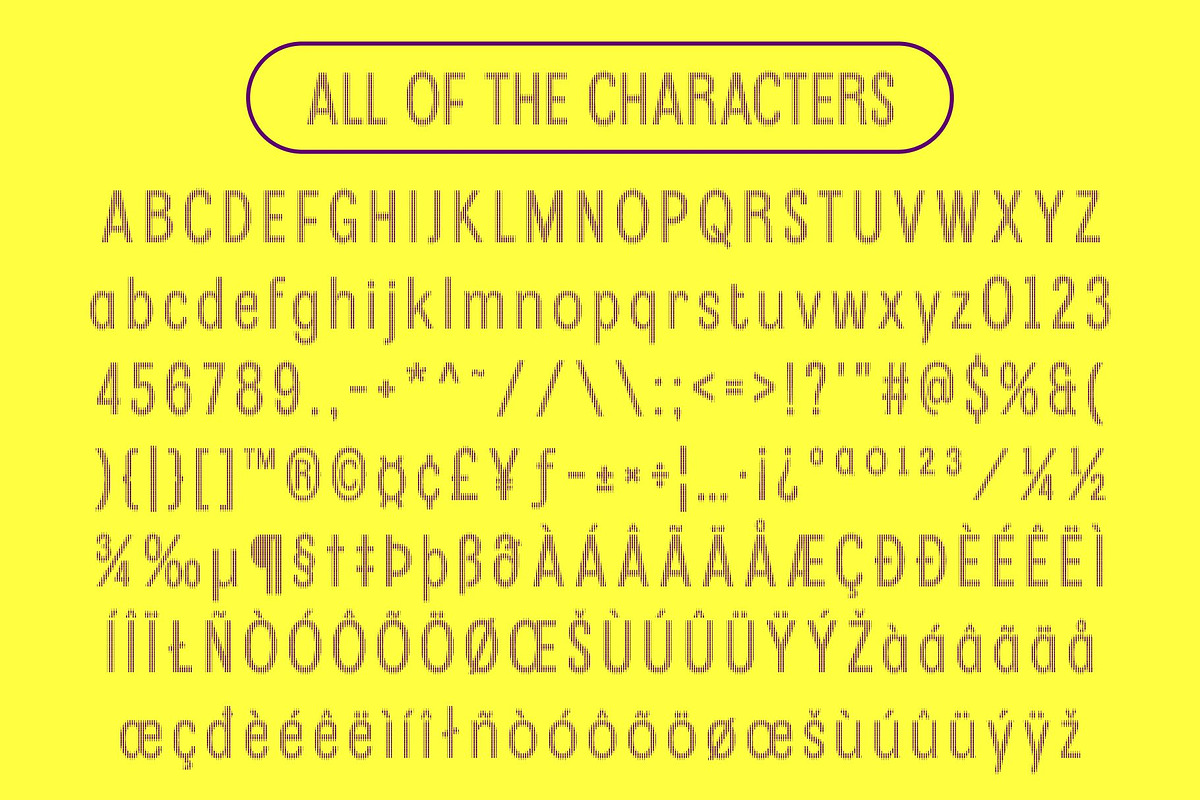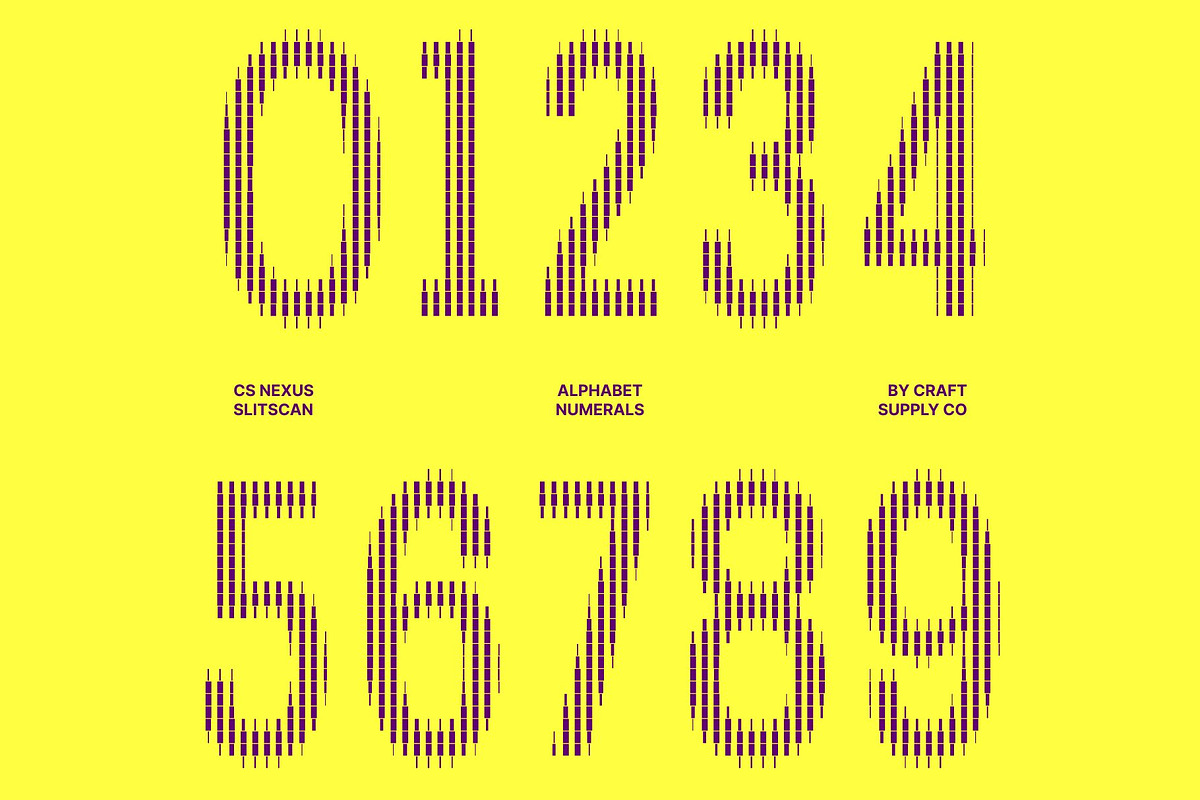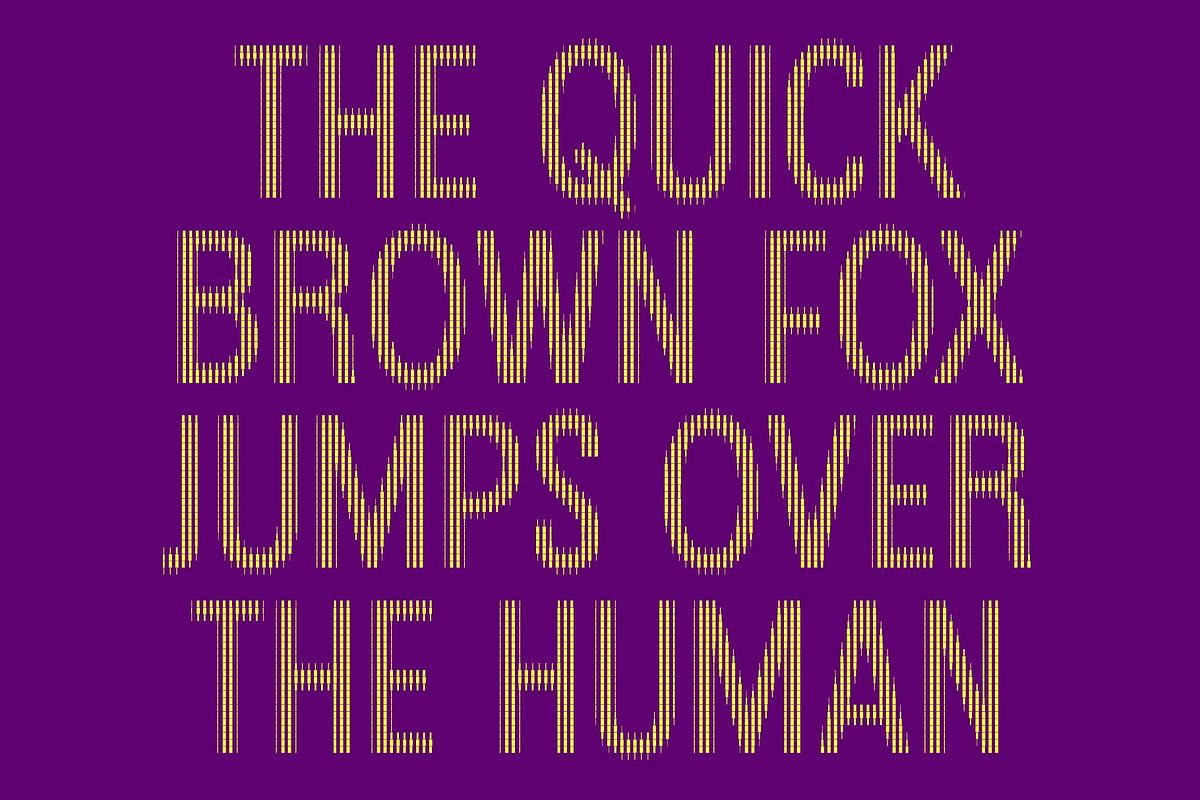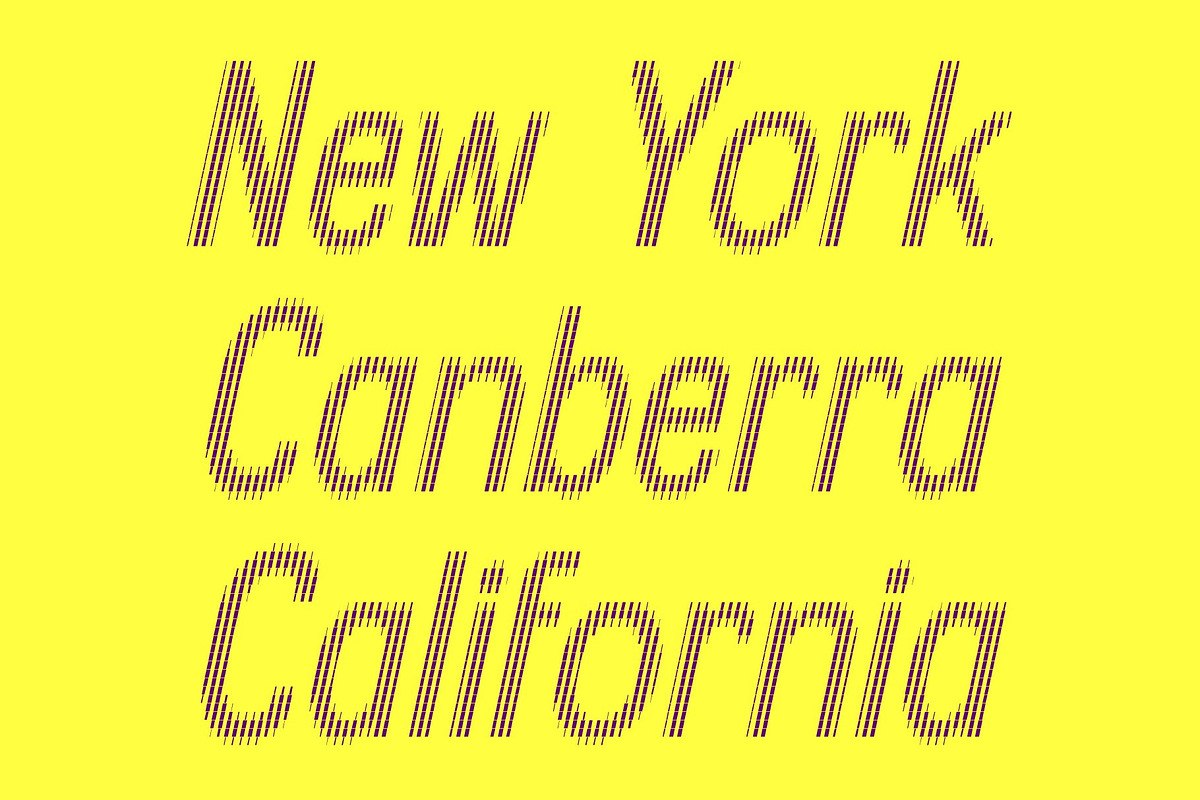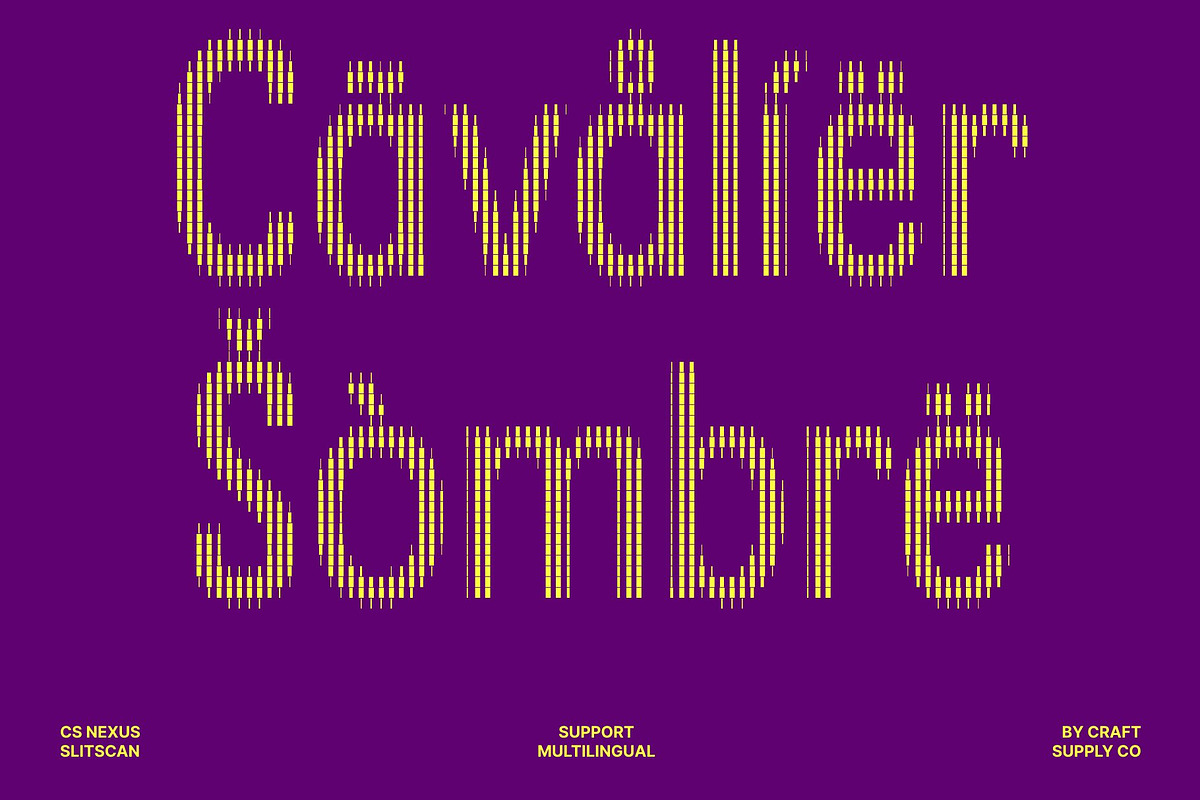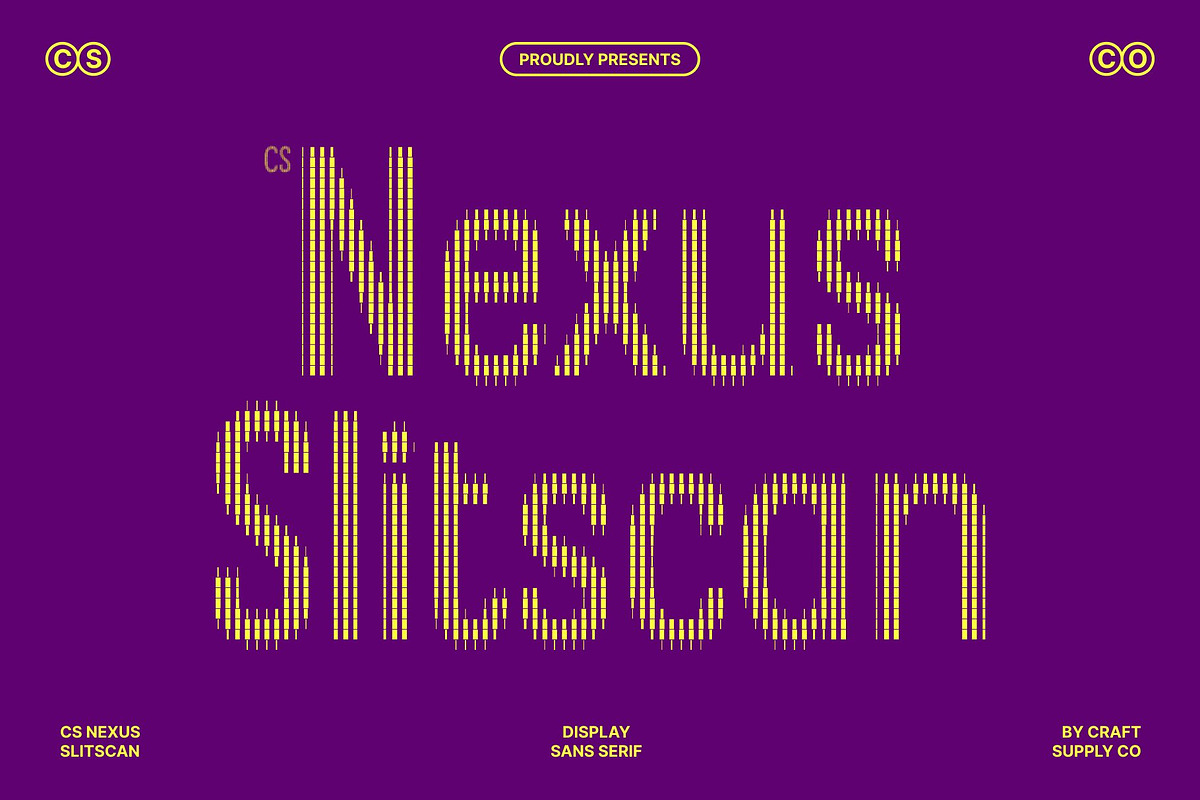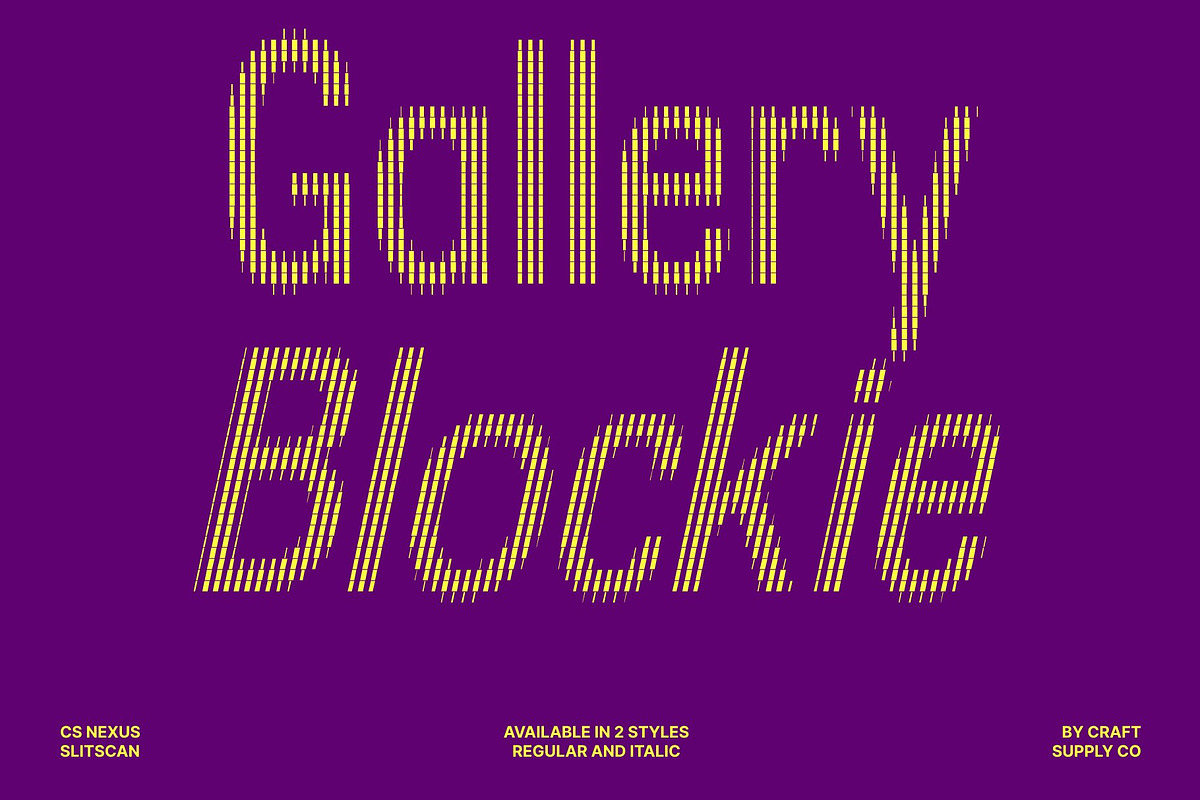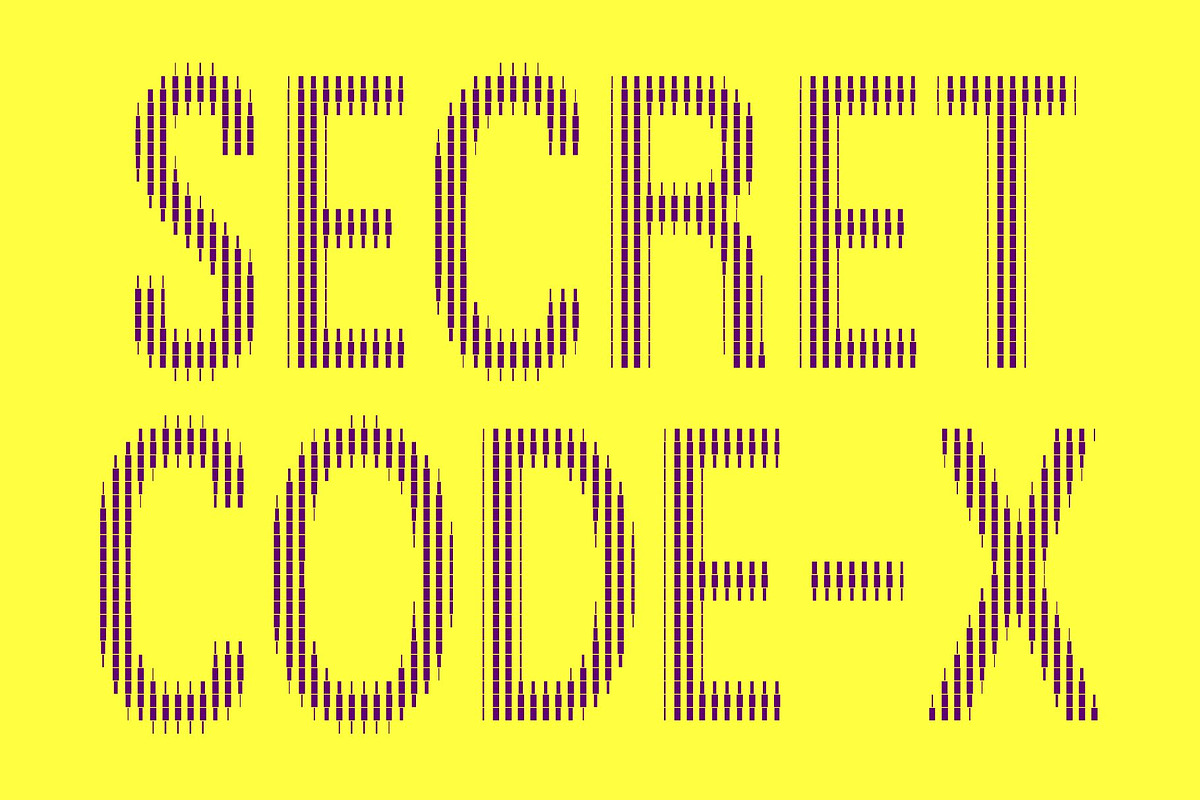
CS Nexus Slitscan
CS Nexus Slitscan – Modern Sans Serif Display Font: Where Geometric Precision Meets Futuristic Distortion
Sharp Geometric Forms with Sleek Modern Clarity This is a modern sans serif display font that embodies sleekness, precision, and contemporary geometric design. Its sharp lines and symmetrical structure create a refined visual identity that feels professional, minimalist, and highly impactful. Every character is crafted with clarity and balance, making the font ideal for modern creative projects that demand efficiency and strong visual presence.
Slitscan Effect with Cyberpunk Motion Energy This font features vertical cut-out layers and fragmented visual motion inspired by slit-scan photography and glitch aesthetics. This multi-layered distortion effect introduces movement, depth, and digital intensity, creating a futuristic atmosphere filled with cyberpunk energy and experimental visual rhythm.
Minimalist Modernism with Experimental Digital Aesthetics This font delivers a typographic identity that feels futuristic, technological, and visually immersive. Its clean structure combined with layered digital fragmentation evokes sci-fi interfaces, glitch art, electronic music visuals, and high-tech creative environments.
Perfect for Sci-Fi Posters and Technology Branding This font ideal for sci-fi posters, experimental electronic album covers, technology competitions, digital events, gaming visuals, futuristic branding, streaming graphics, and modern promotional materials. Its slitscan-styled forms make it perfect for logos, headlines, interfaces, apparel graphics, and visual identities that seek clarity with a cutting-edge futuristic aesthetic.
CS Nexus Slitscan Regular
CS Nexus Slitscan Italic